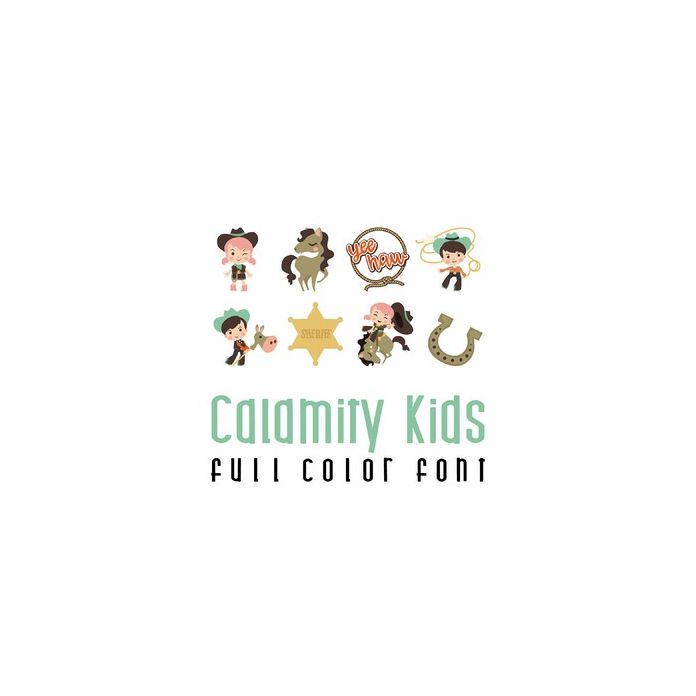
This adorable full color doodlebat font features cowboys and cowgirls living their wild west dreams. Perfect for cards, crafts, gifts, decor, scrap book pages, planner stickers and more!